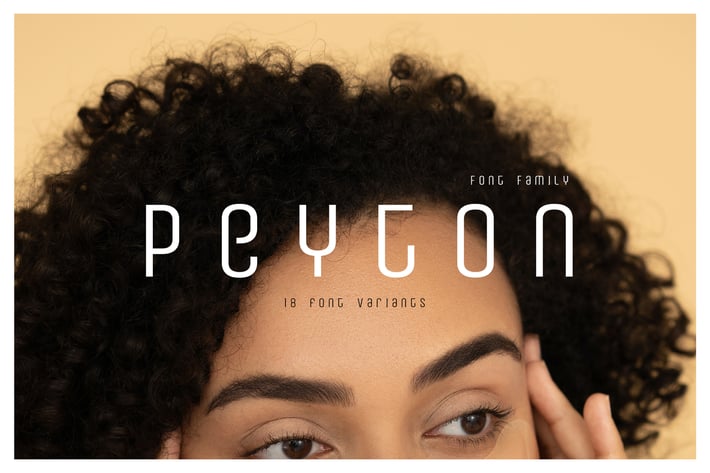
Peyton Display font family with 18 Variants
Peyton font family with Webfonts.
Peyton is a minimalist font family with a unique and modern look. Created wonderfully for display, branding and logo projects. Peyton is suitable for headlines, posters, signages, just anything that requires a creative Look. And itβs ready to make an enduring impression on your design projects.